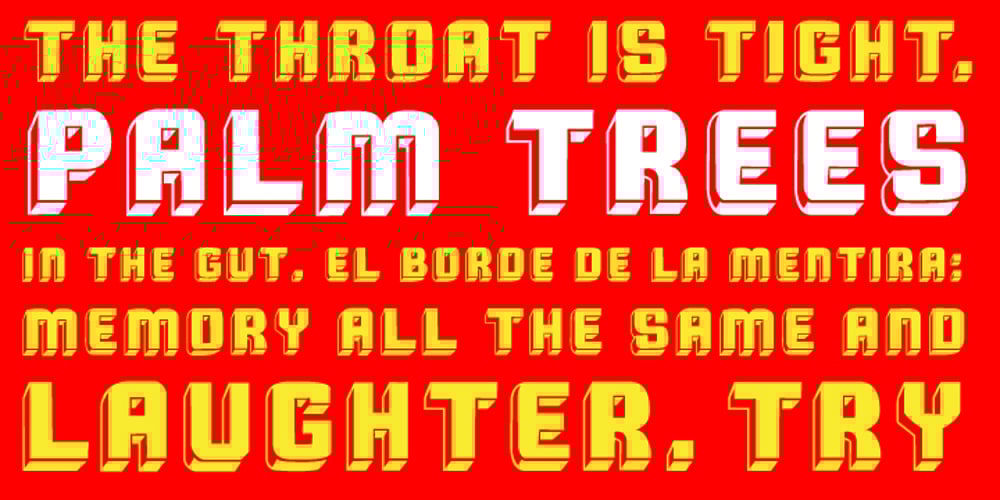
Cuba
Cuba font
Cuba Font Family was designed by Pablo A. Medina and published by Design is Culture. Cuba contains 1 styles and family package options. The inspiration for Cuba comes from a sign for the restaurant “La Flor de Cuba” on Bergenline Avenue in Union City, New Jersey. Its blocky, dimensional forms are reminiscent of letterforms seen in signs throughout Latin America from, Colombia, to Mexico, to Spain, to Union City. Its quirky forms are meant to evoke a sense of hand painted signage.